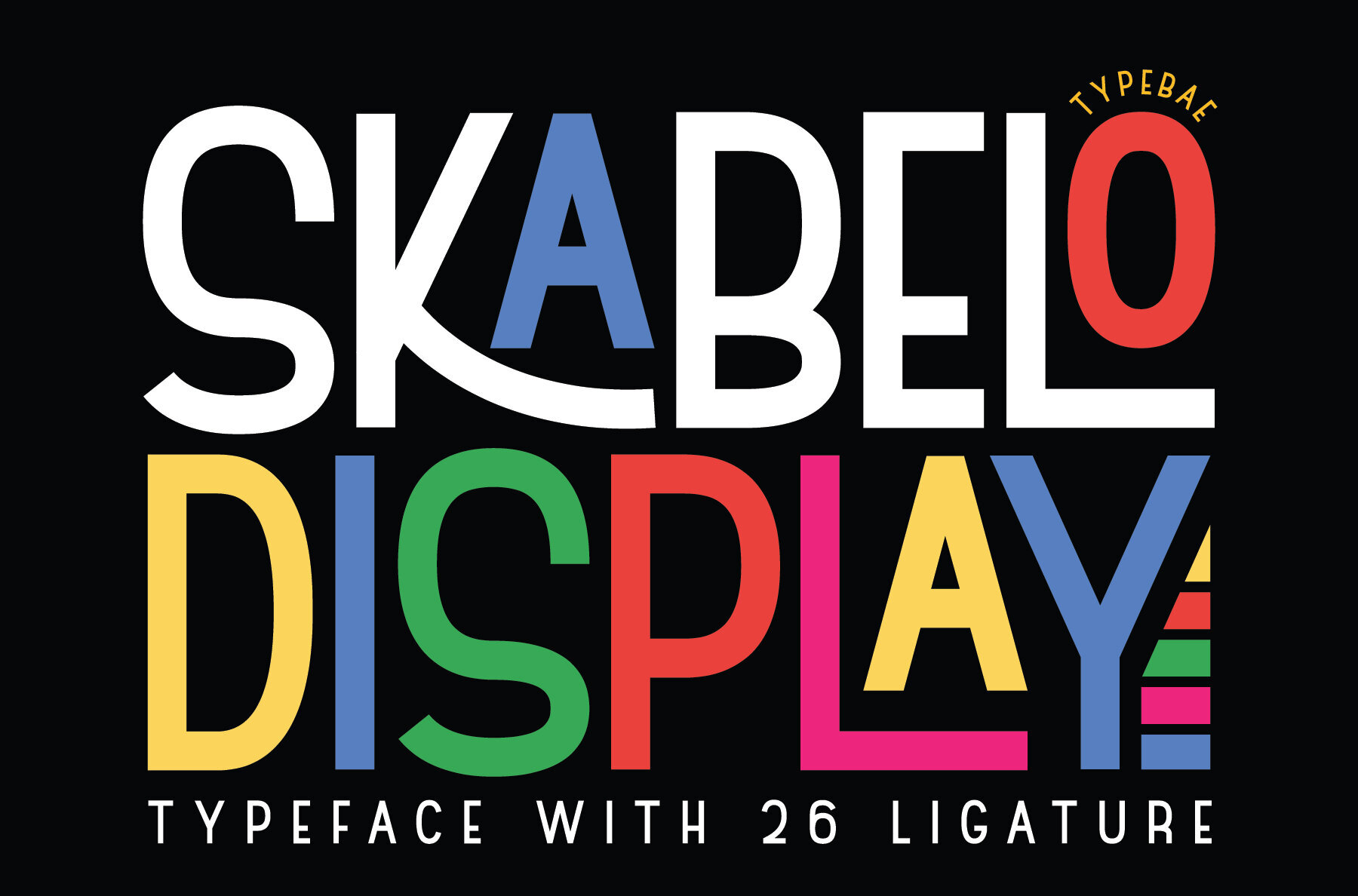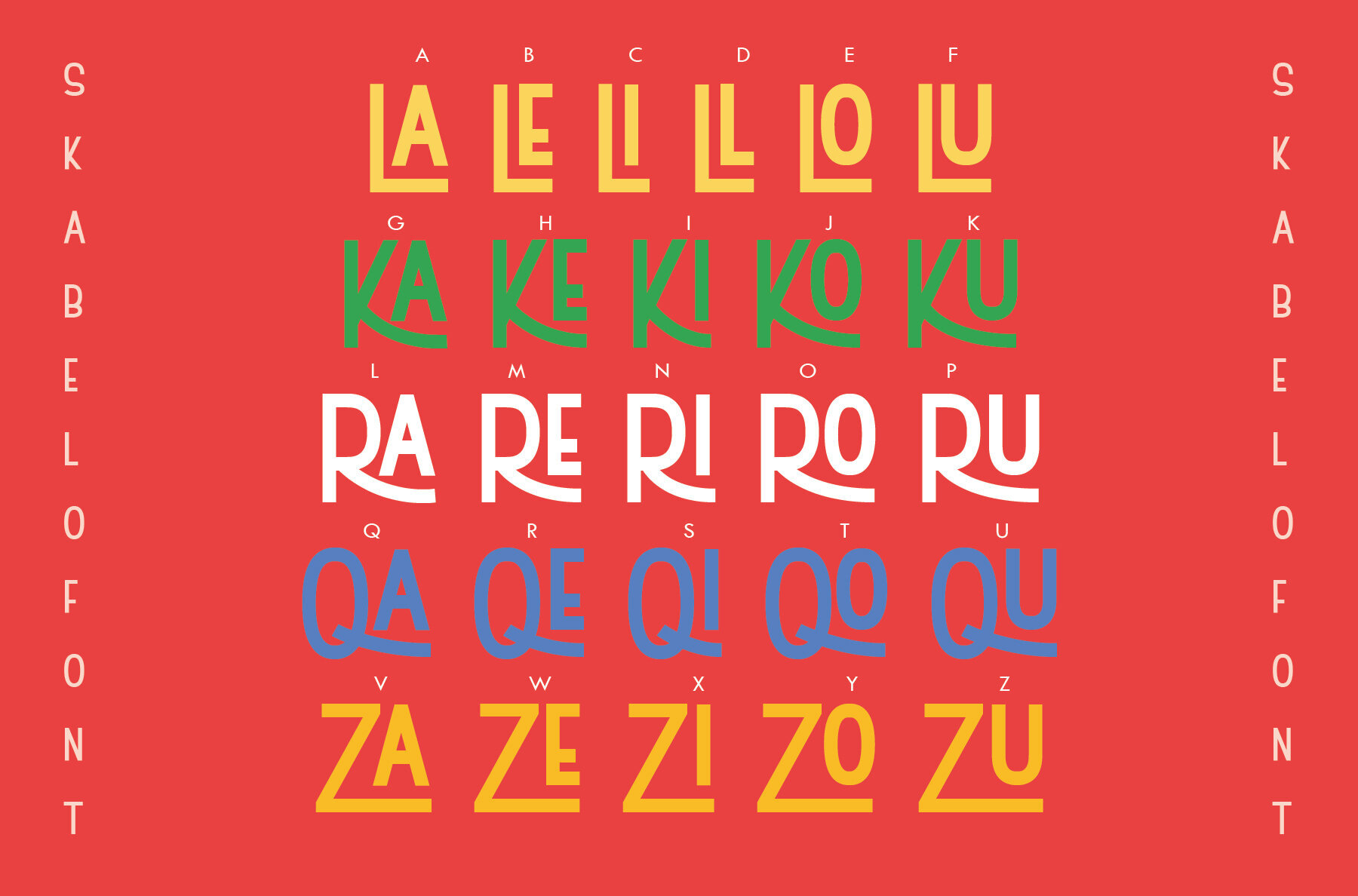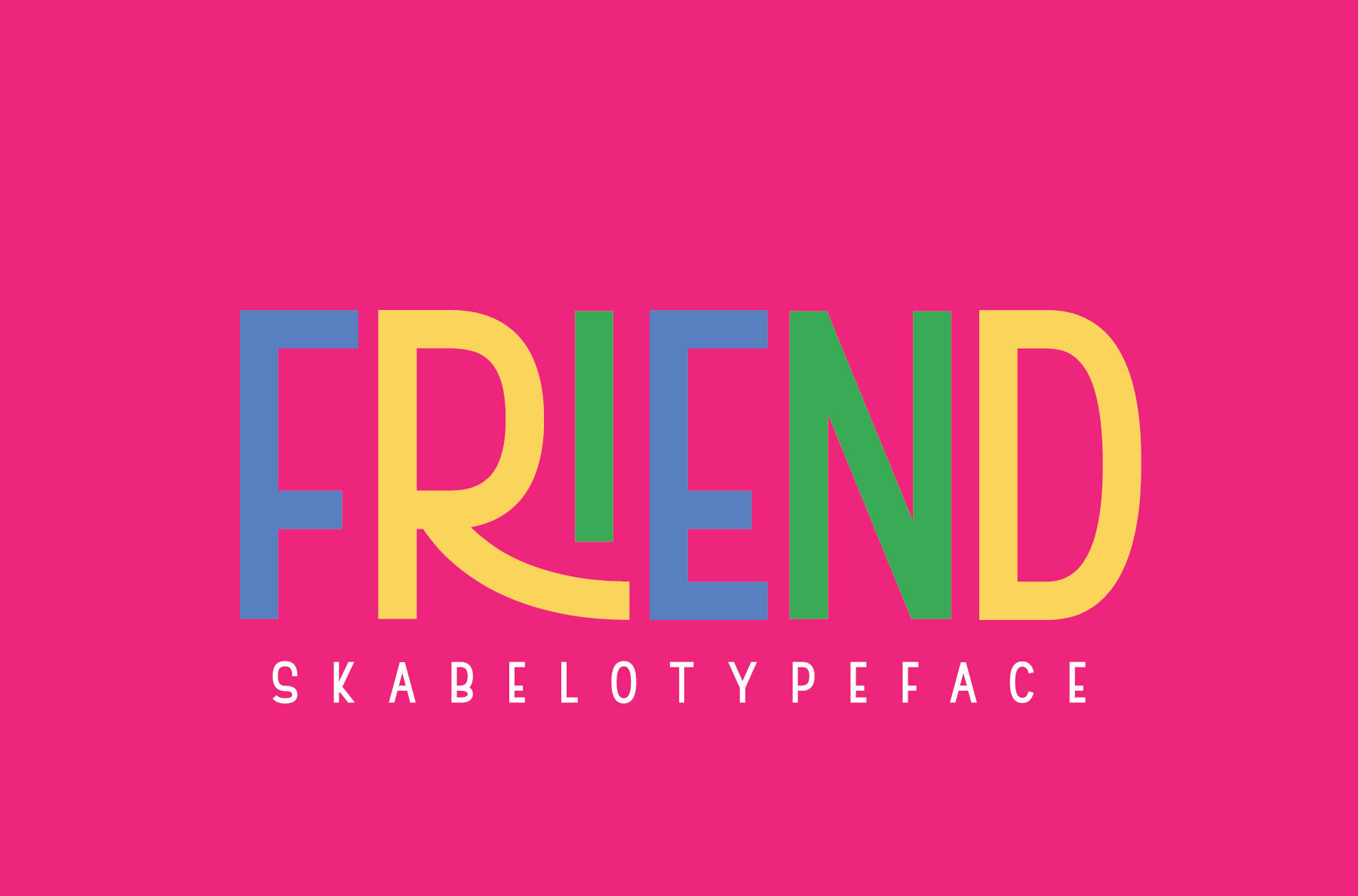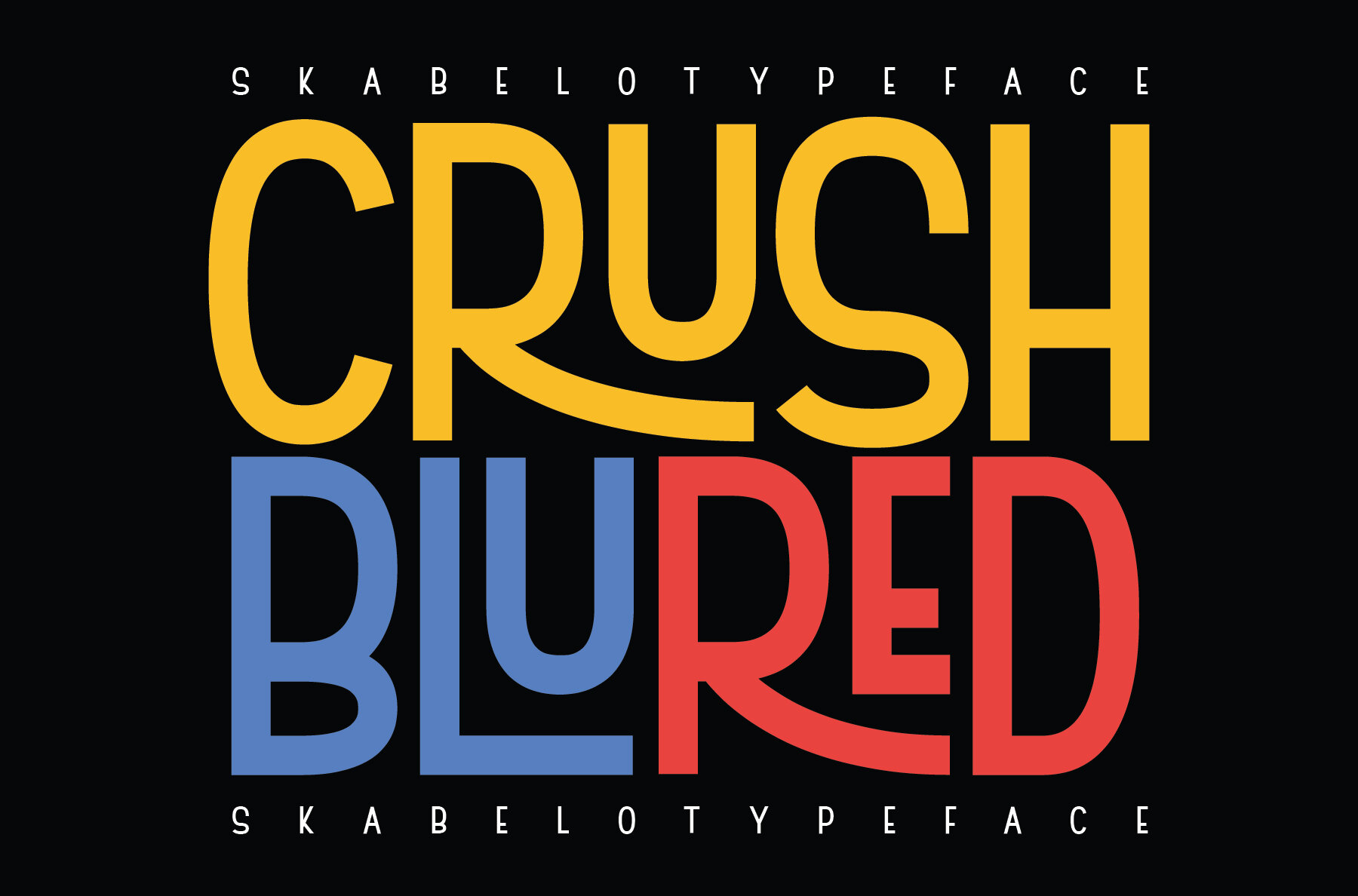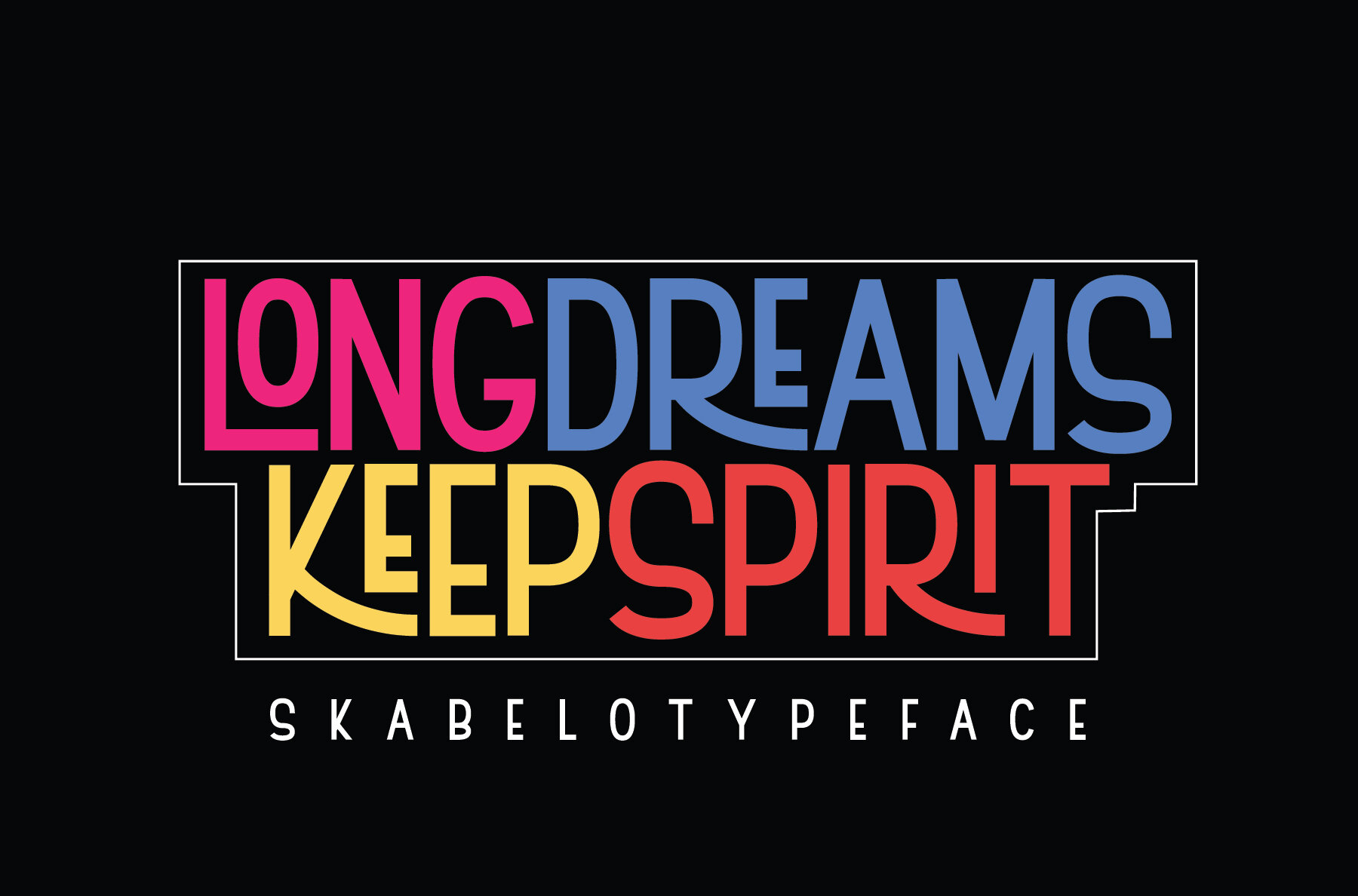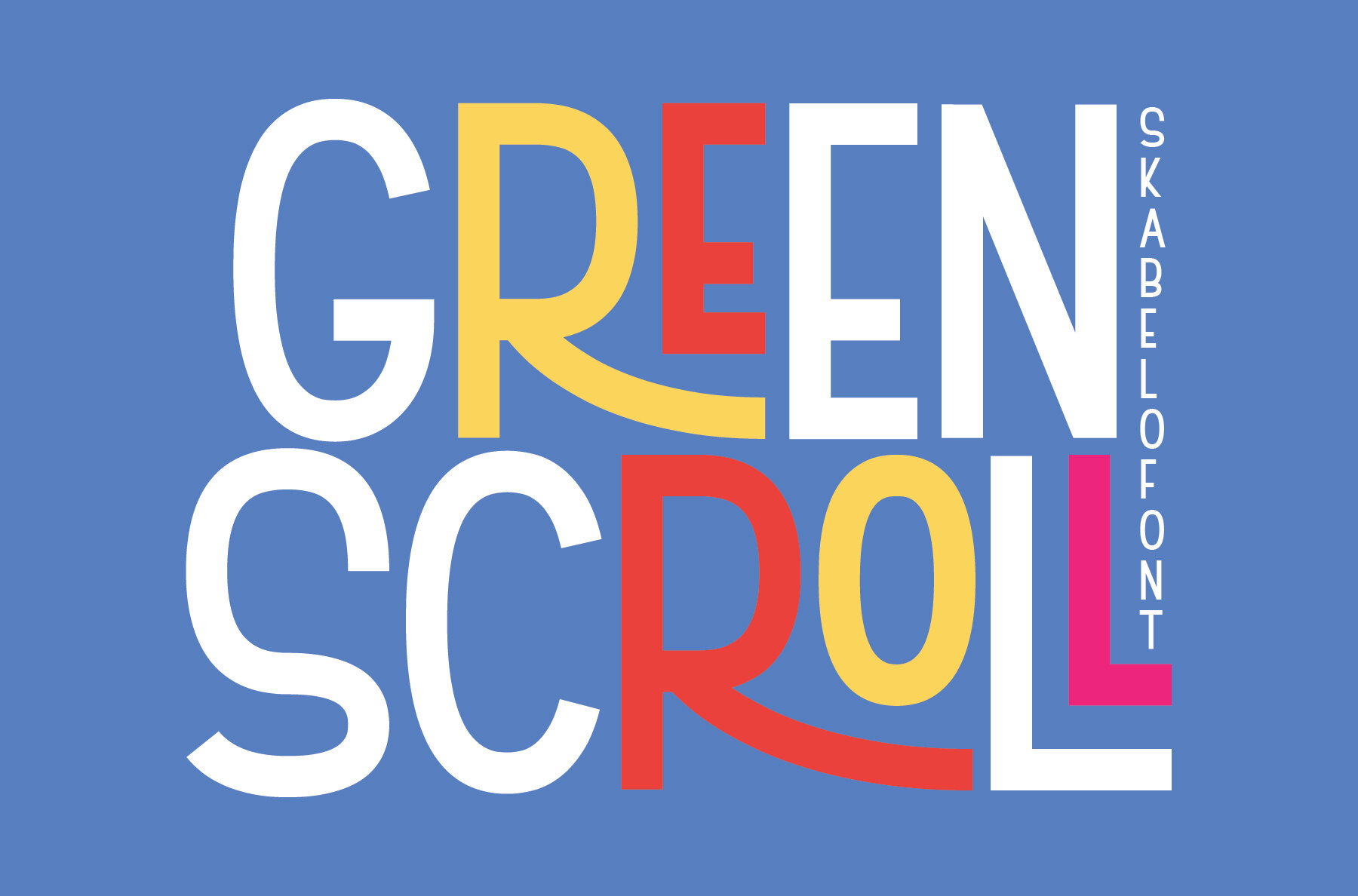
Skabelo Font
Skabelo is a display font that combines simplicity with playfulness, making it an excellent choice for designers looking to create engaging typographic compositions. Its tall character design facilitates versatility, allowing for creative exploration of various shapes and layouts. Moreover, with a collection of 26 unique ligatures, Skabelo invites creativity and visual interest.Skabelo: A Playful Display Font with Unique Ligatures